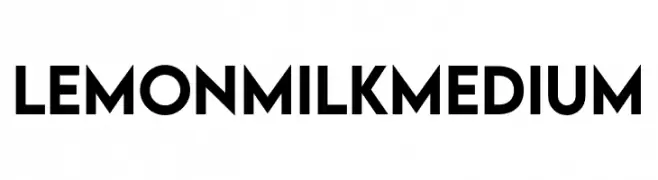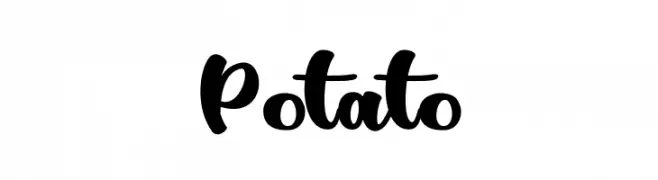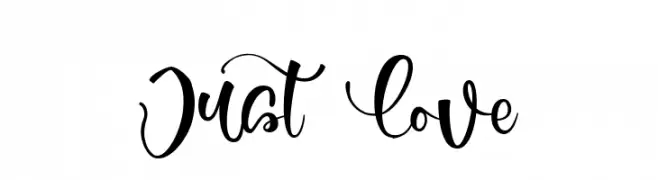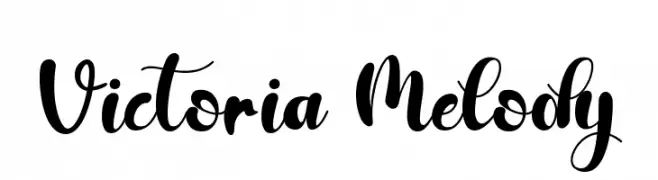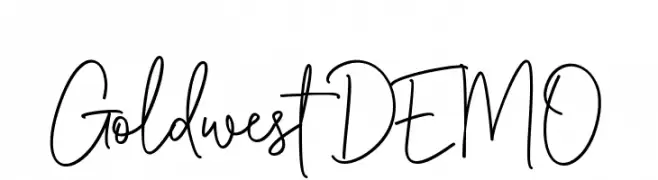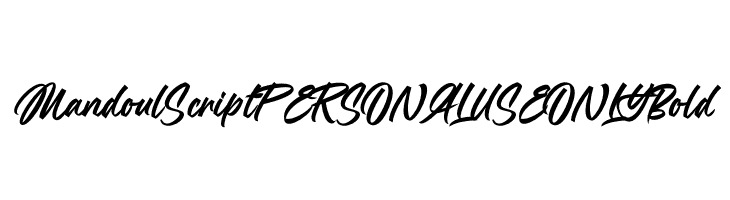
A bold, geometric sans-serif font with a modern and structured design.
A rugged, hand-drawn font with a playful and organic feel.
A bold, playful script font with a hand-drawn, friendly appearance.
A playful, handwritten script font with flowing, interconnected strokes.
An elegant, flowing script font with decorative swashes and loops.
An elegant, flowing script font with a sophisticated and artistic style.
A modern, elegant script font with a handwritten style.
An elegant script font with a flowing, handwritten style.
A playful and elegant handwritten font with fluid strokes.